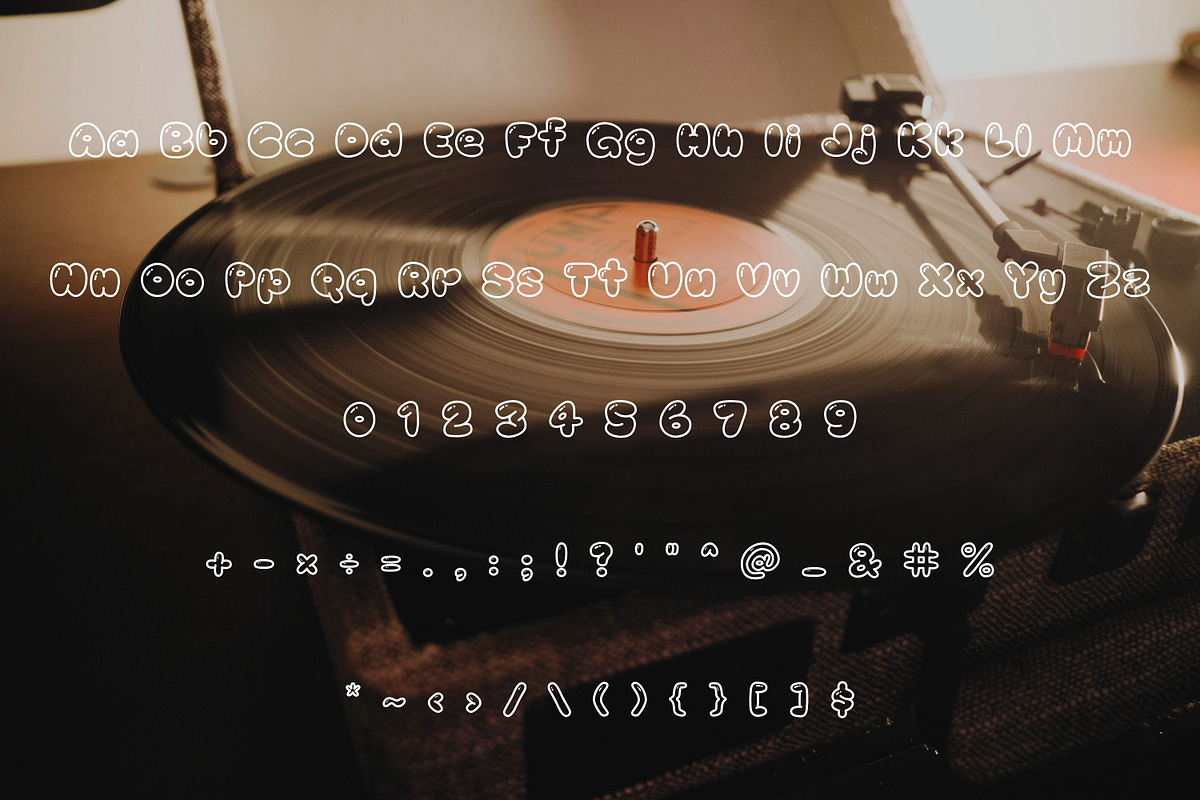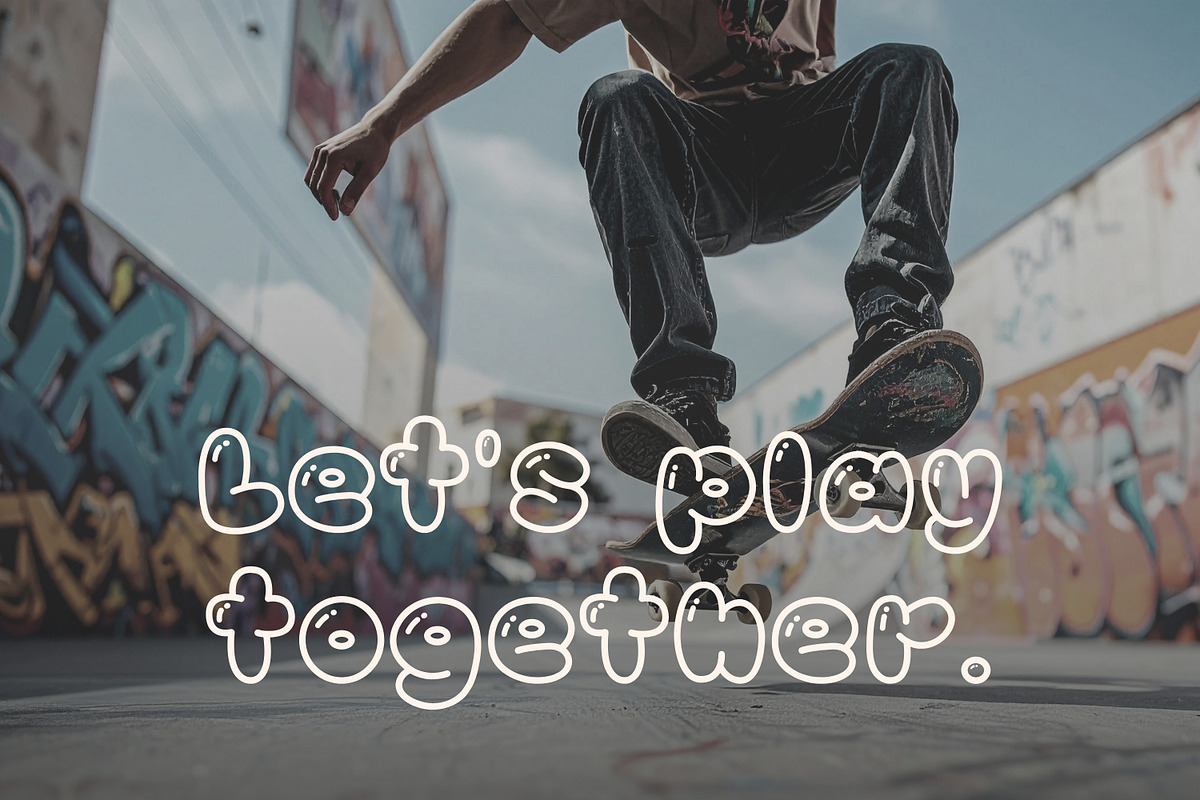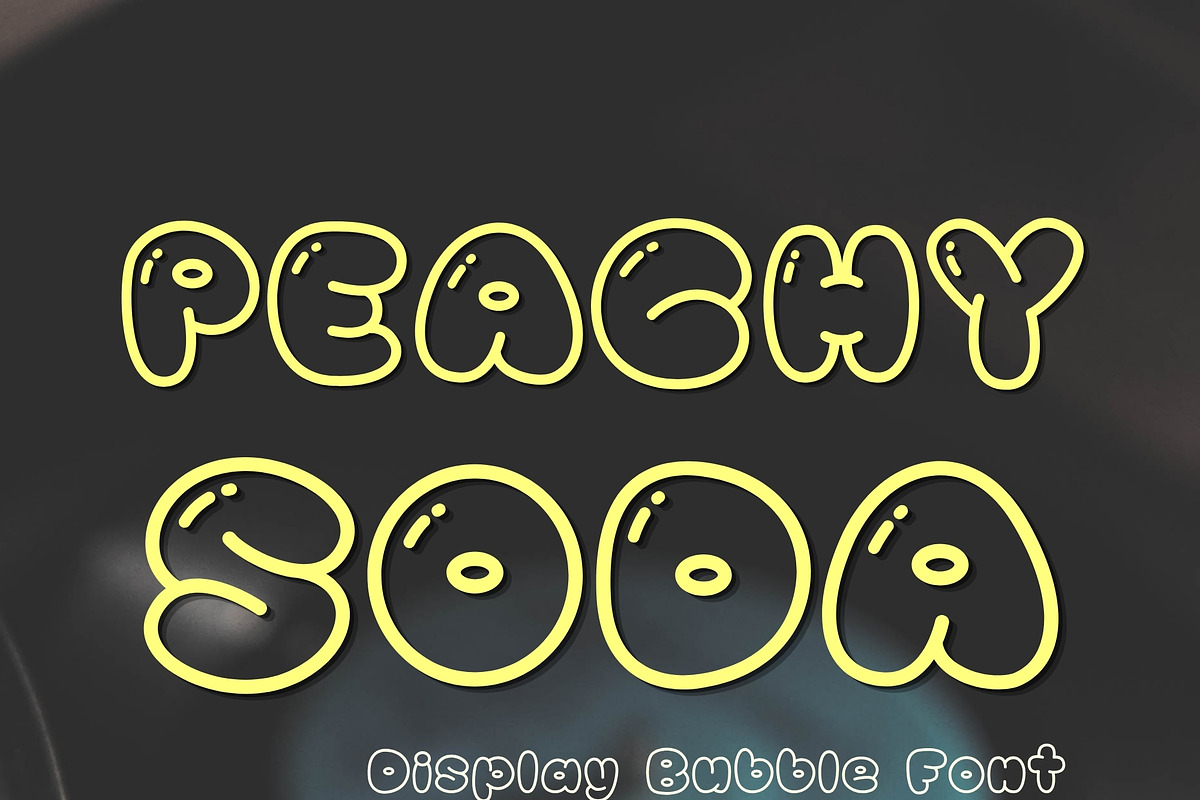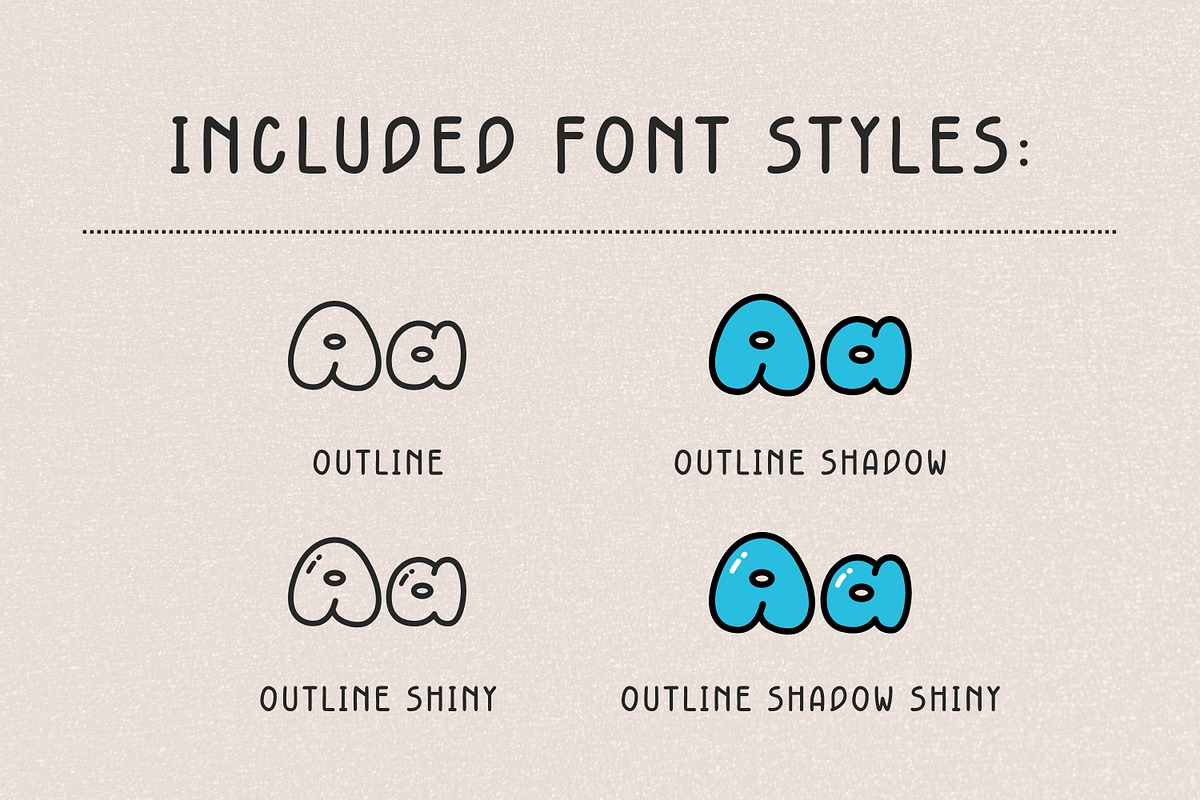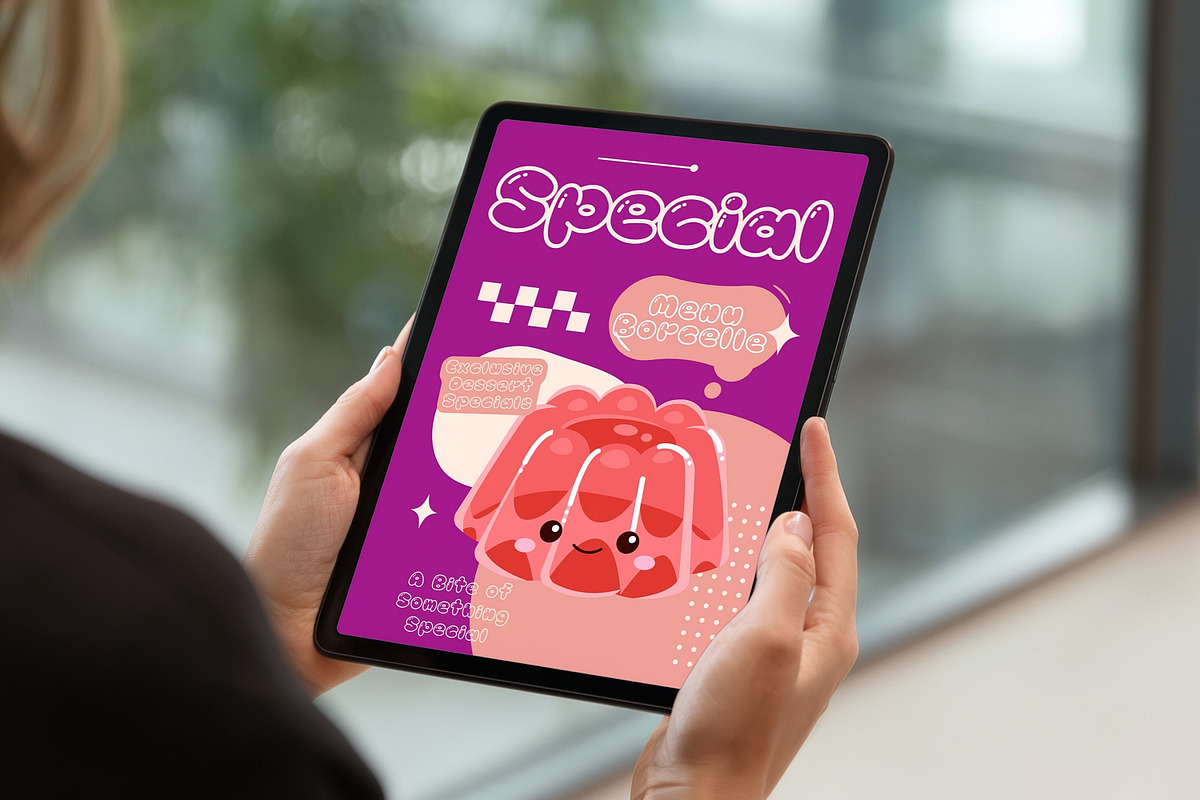
Bubble Display Font - Peachy Soda
✨ Peachy Soda Font – Cute Bubble Display Font
Add a fun and playful pop to your designs with Peachy Soda, a cute bubble display font made for creators who love bold, sweet, and eye-catching typography. This charming font features soft rounded edges and a bubbly hand-drawn look that makes it perfect for playful branding, Cricut crafts, social media graphics, stickers, invitations, and more.
- Peachy Soda font, 4 style (outline, outline shiny, outline shadow, outline shadow shiny) : OTF, TTF, WOFF, WOFF2, SVG